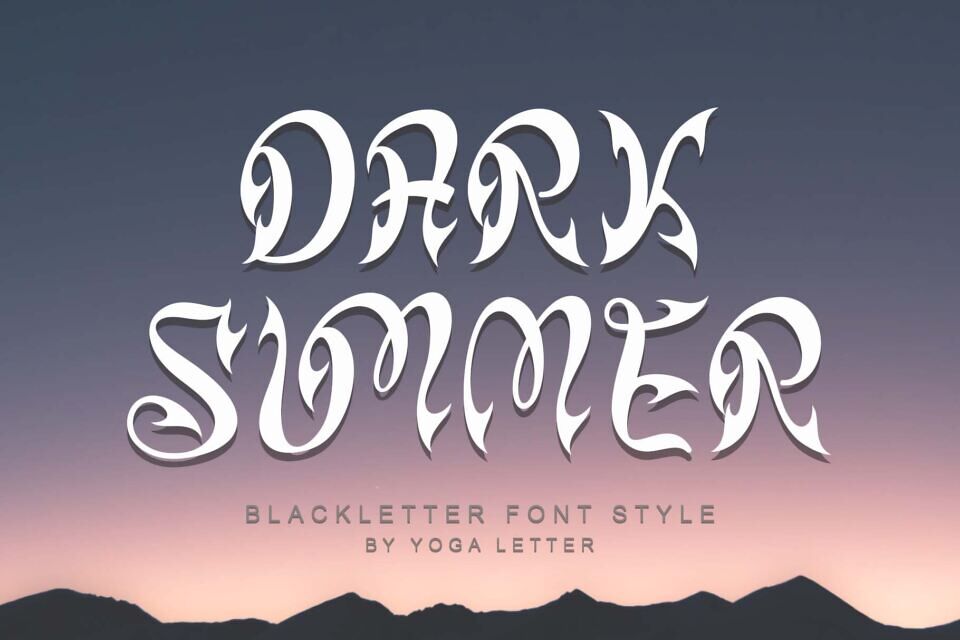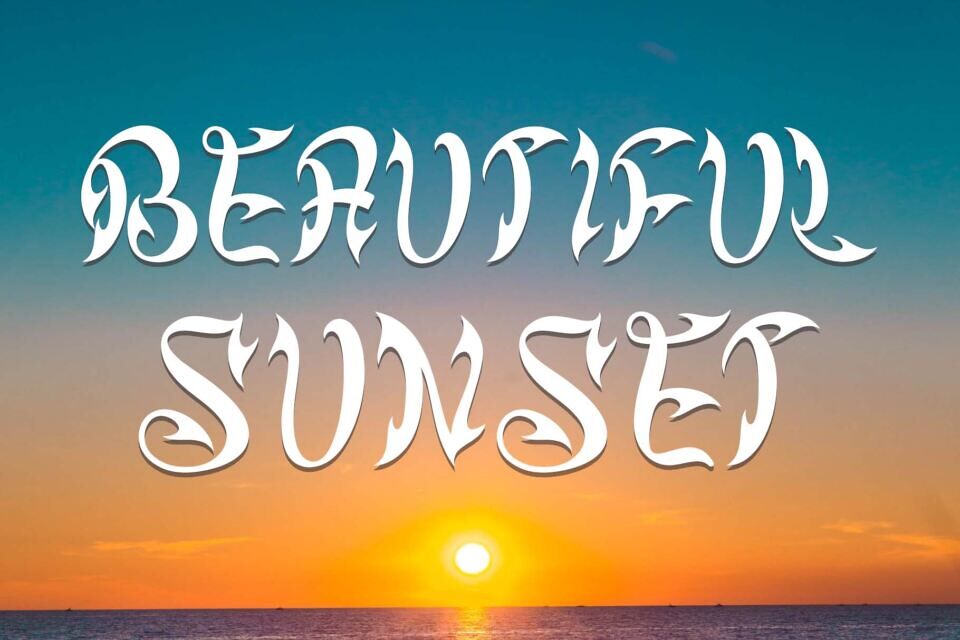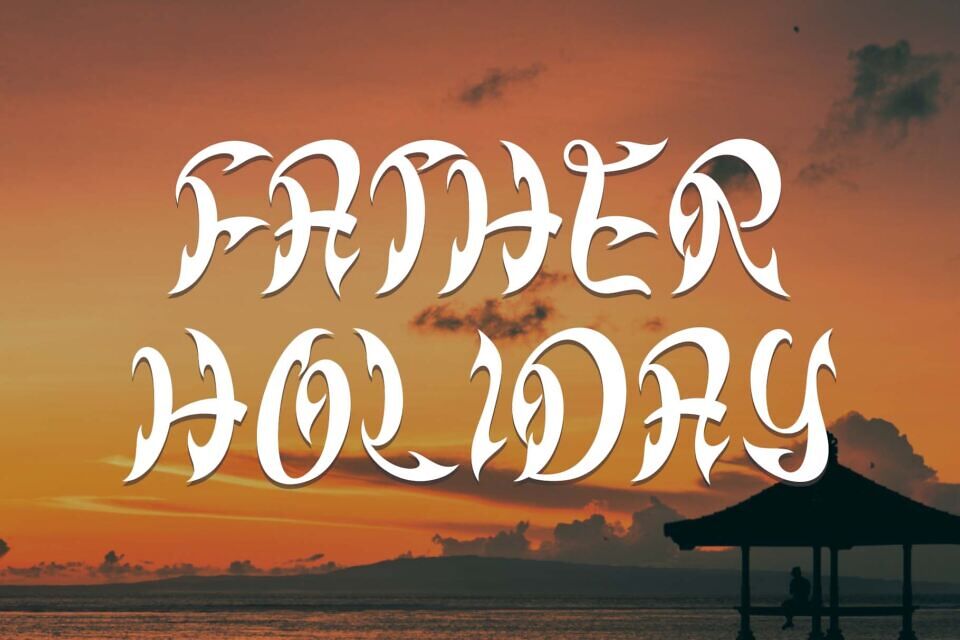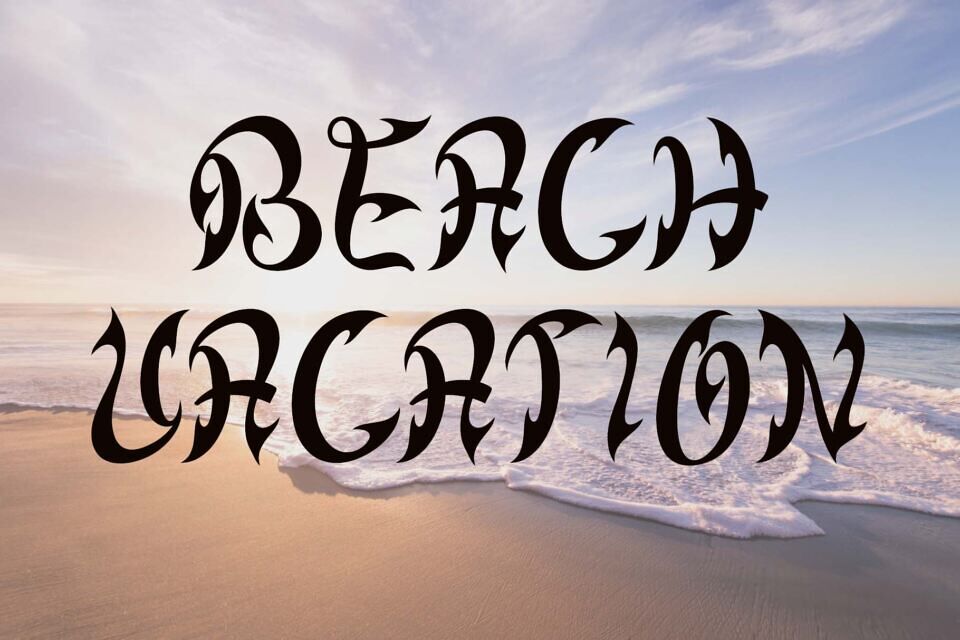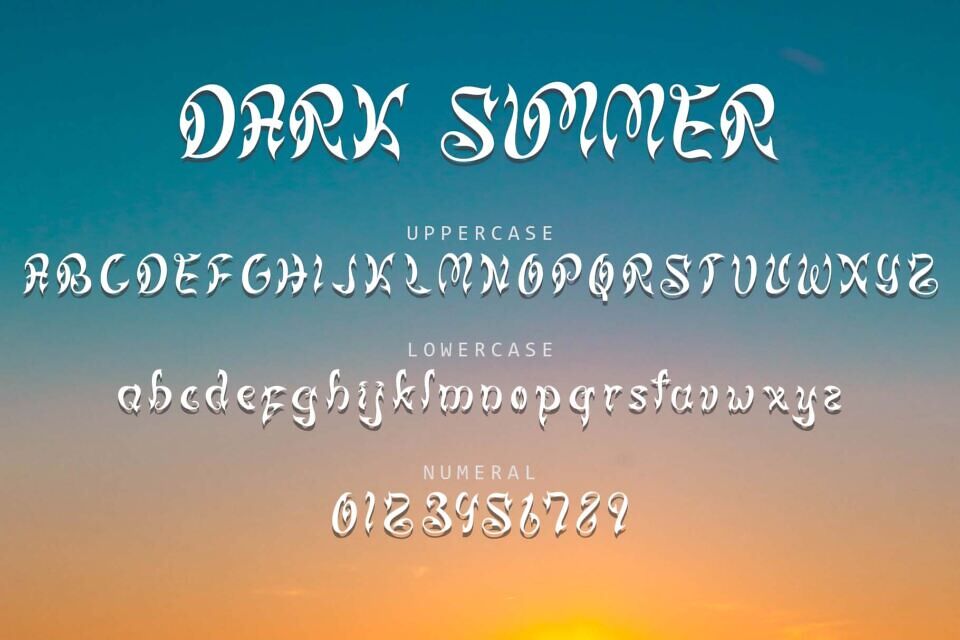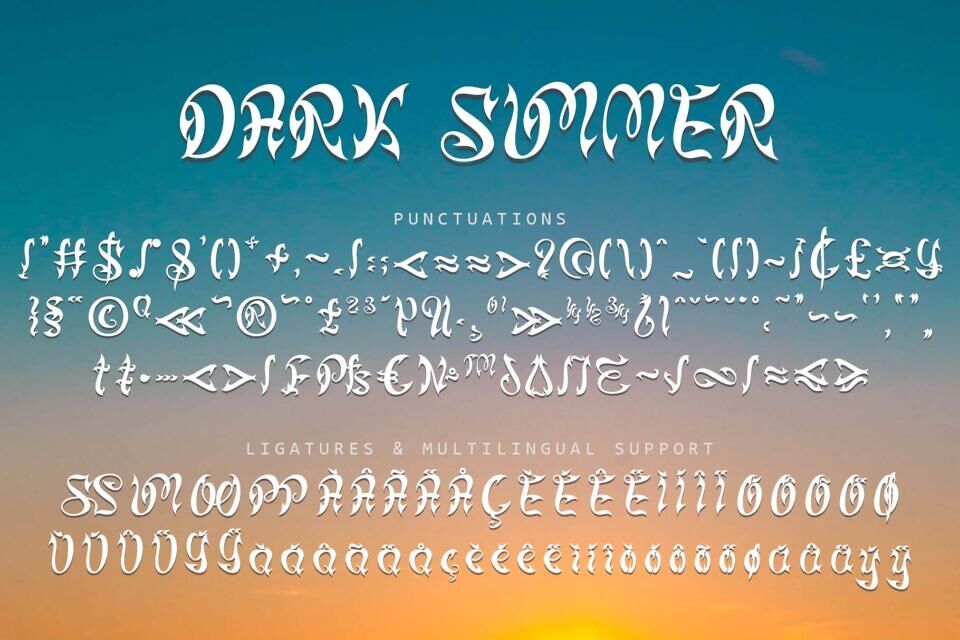
Dark Summer Font
Dark Summer is a unique and elegant blackletter font. This font is equipped with uppercase, lowercase, ligatures, numerals, punctuations and multilingual support.